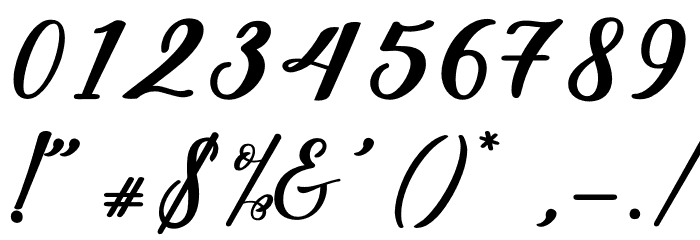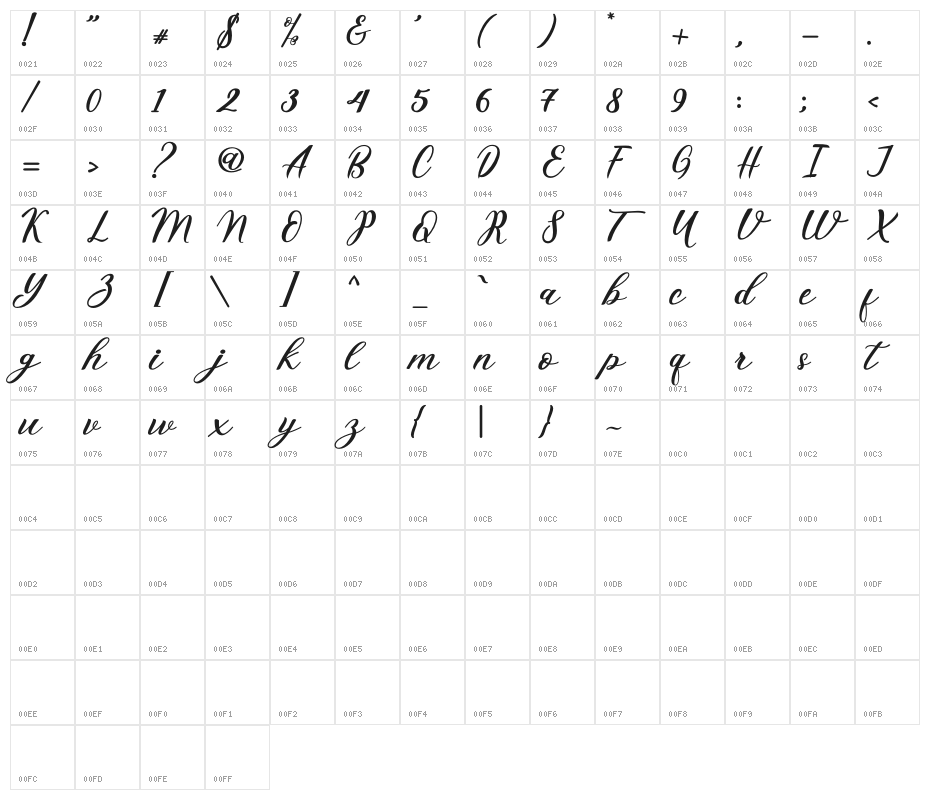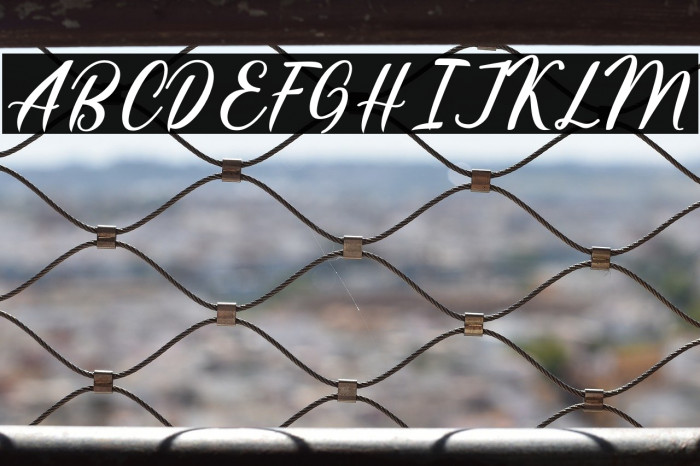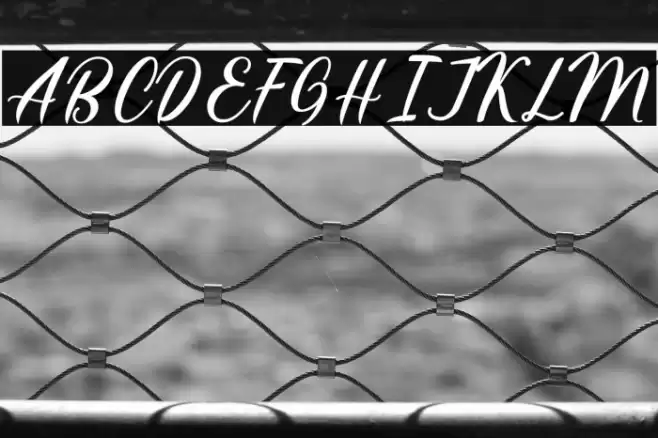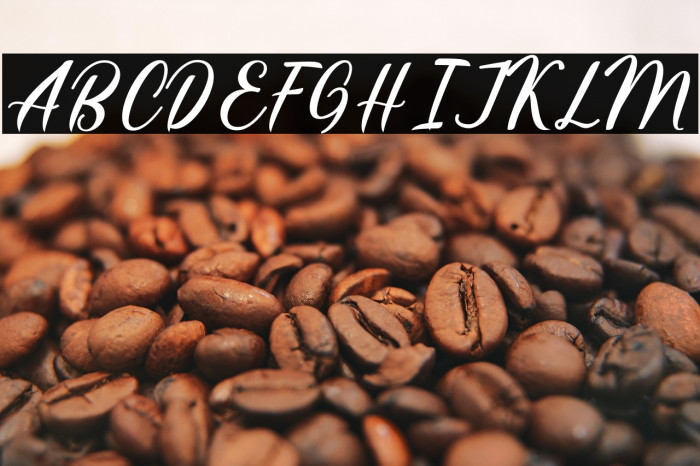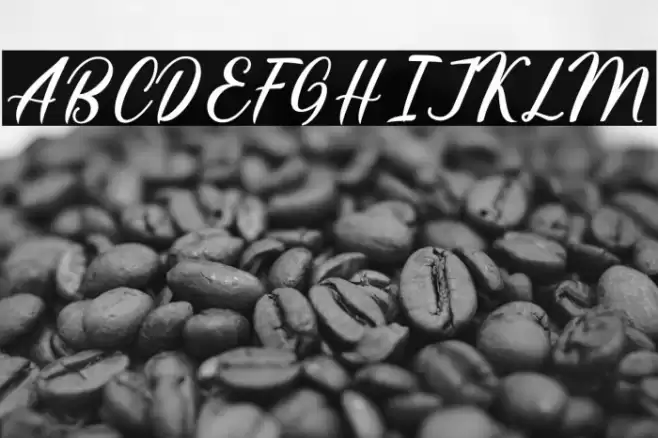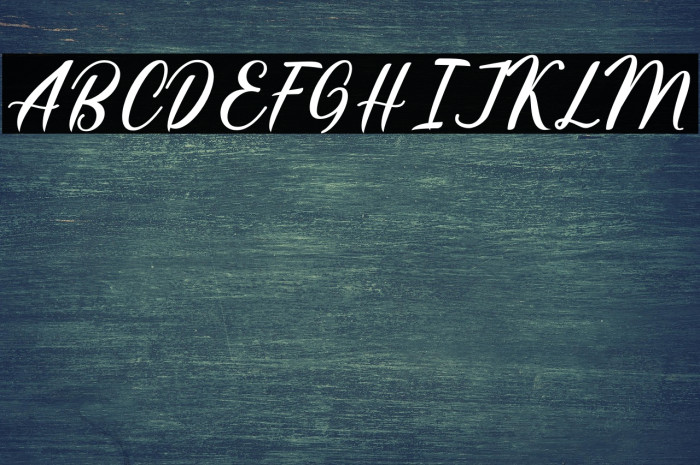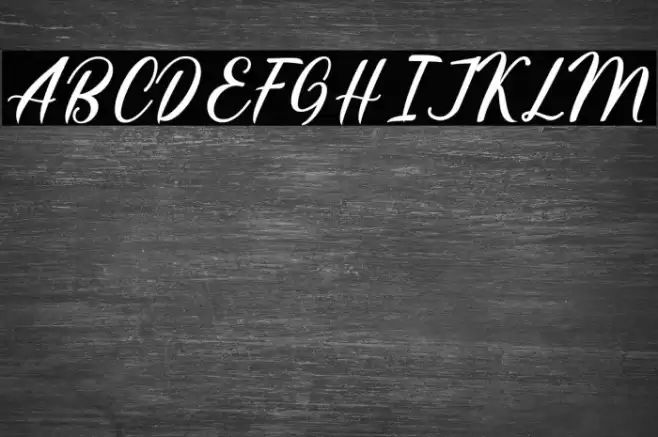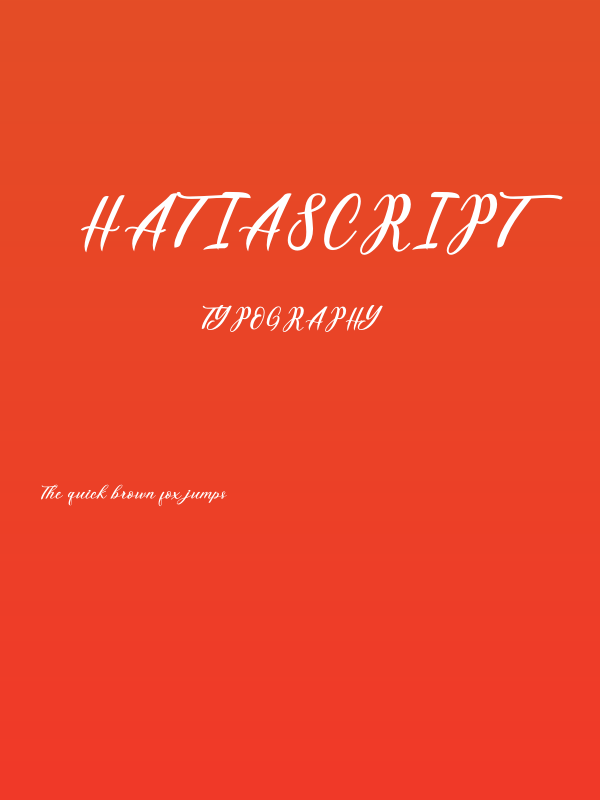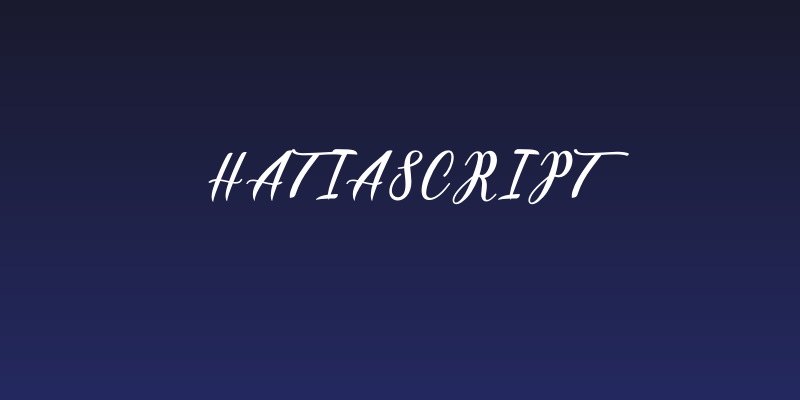
HatiaScript Font
HatiaScript Description
This font exudes elegance and fluidity, characterized by its cursive, handwritten style. The letters are gracefully connected, with smooth, flowing lines that create a sense of movement and sophistication. The uppercase letters are slightly more ornate, with flourishes that add a touch of drama, while the lowercase letters maintain a consistent rhythm and balance. The numerals and special characters are designed to complement the overall aesthetic, ensuring a cohesive look across all elements. This font is perfect for projects that require a personal, artistic touch, such as invitations, greeting cards, or branding materials.
| Overall Style | Elegant, Artistic |
| Use Case | Headlines, Invitations, Artistic projects |
| Proposed Projects | Ideal for wedding invitations, greeting cards, personal branding, and artistic projects. |